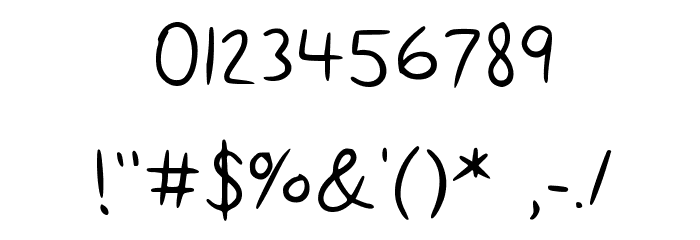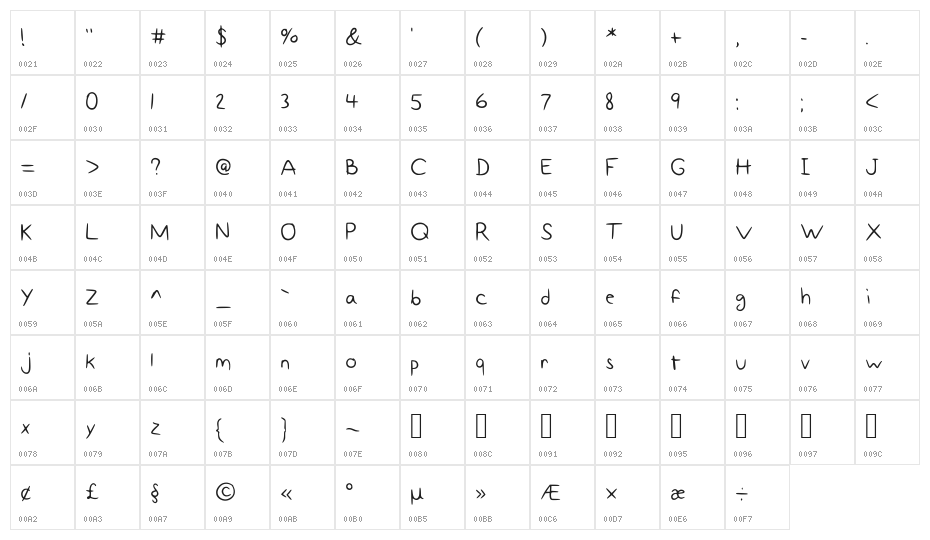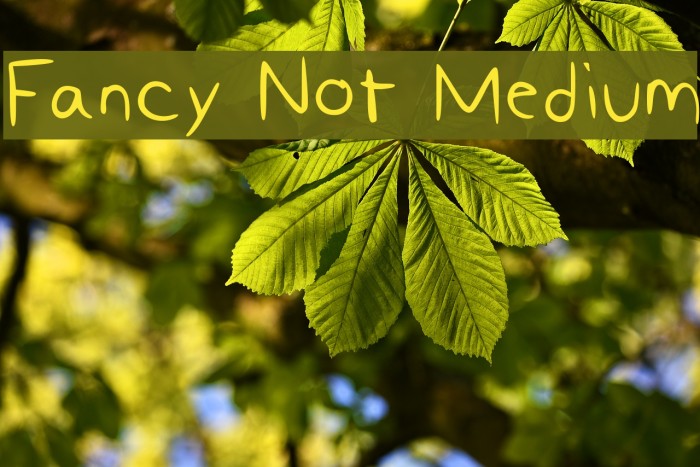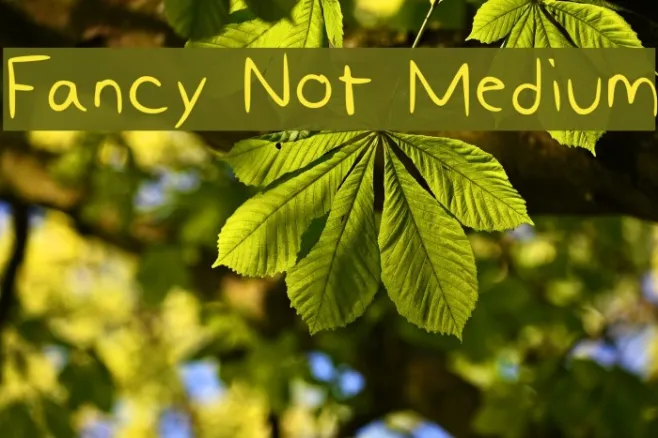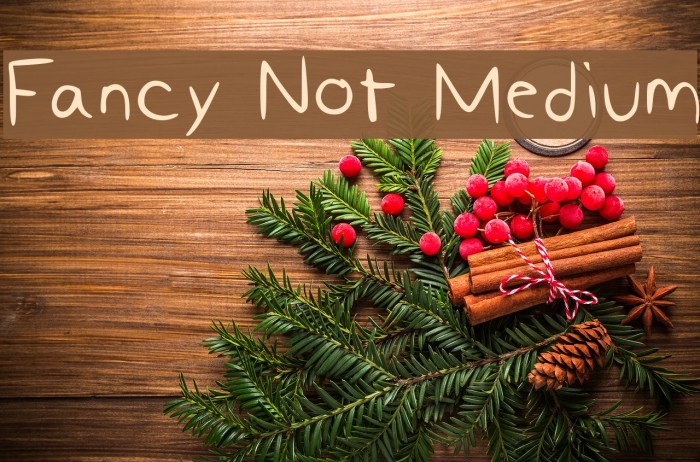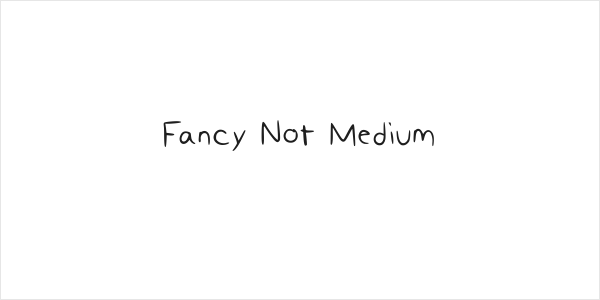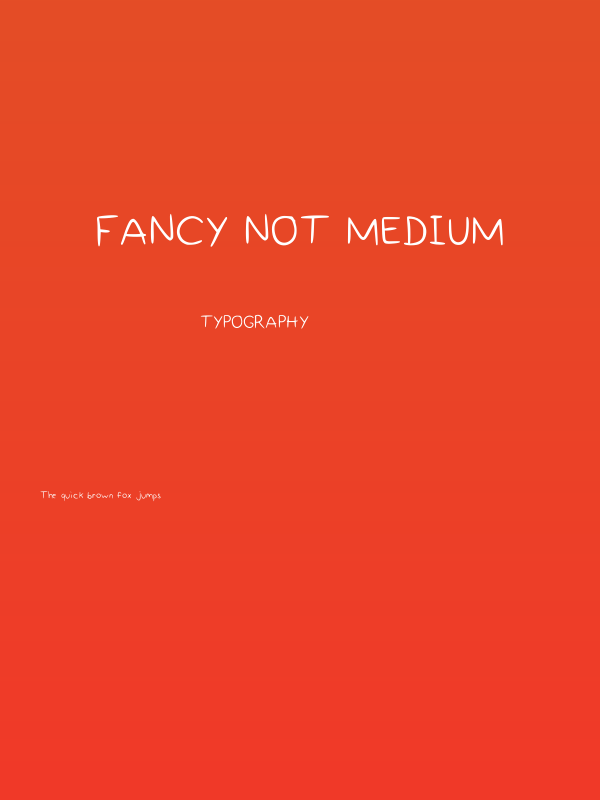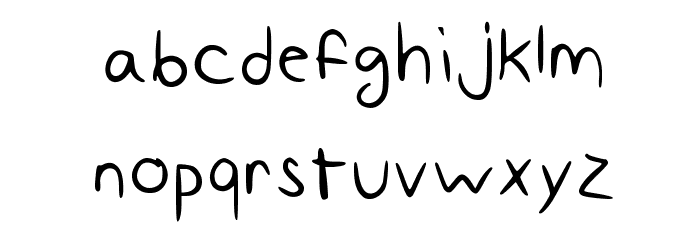
Fancy Not Medium Font
Fancy Not Medium Description
This font features a playful and informal handwritten style, characterized by its irregular and slightly whimsical letterforms. The strokes are smooth and rounded, giving it a friendly and approachable appearance. It maintains a consistent line weight throughout, which adds to its casual and relaxed vibe. The characters are slightly tilted, enhancing the handwritten feel, and the spacing between them is moderate, ensuring readability while preserving its unique charm. This font is suitable for projects that aim to convey a sense of fun and creativity.
| Proposed Projects | Ideal for children's books, greeting cards, casual invitations, and creative branding. |